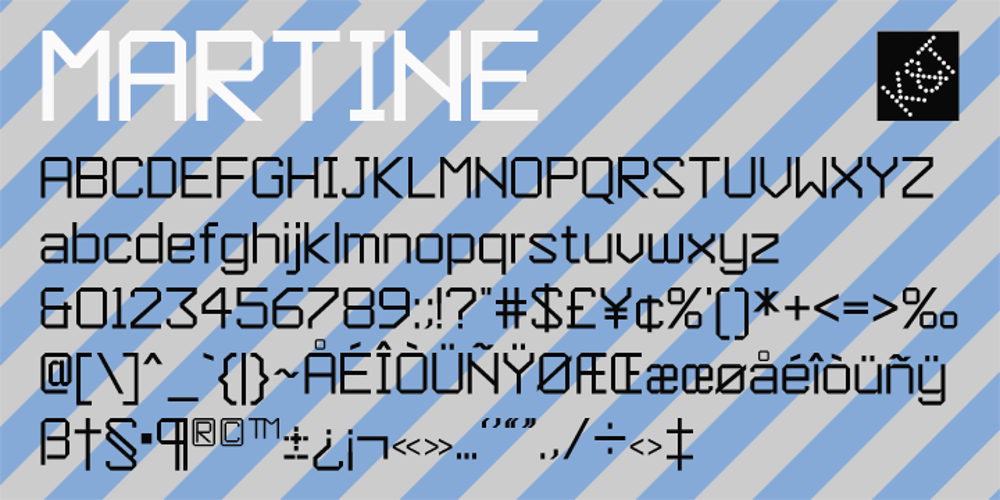
K&T Martine
K&T Martine font
K&T Martine Font Family was designed by published by K and T. K&T Martine contains 3 styles and family package options. This is an angular typeface inspired by axonometric construction diagrams (for flat-pack furniture), particularly the way their lines impart a sense of 3-D space. The horizontal, vertical, and diagonal constraints of stroke direction produce interesting results in characters such as the ‘R’, ‘S’, and ‘V’ and contribute the mechanical appearance of this typeface. There is a high degree of repetition amongst different characters (upper and lower case) for instance the ’M’ and ‘W’ are similar and so are the ’m’ and ‘w’.